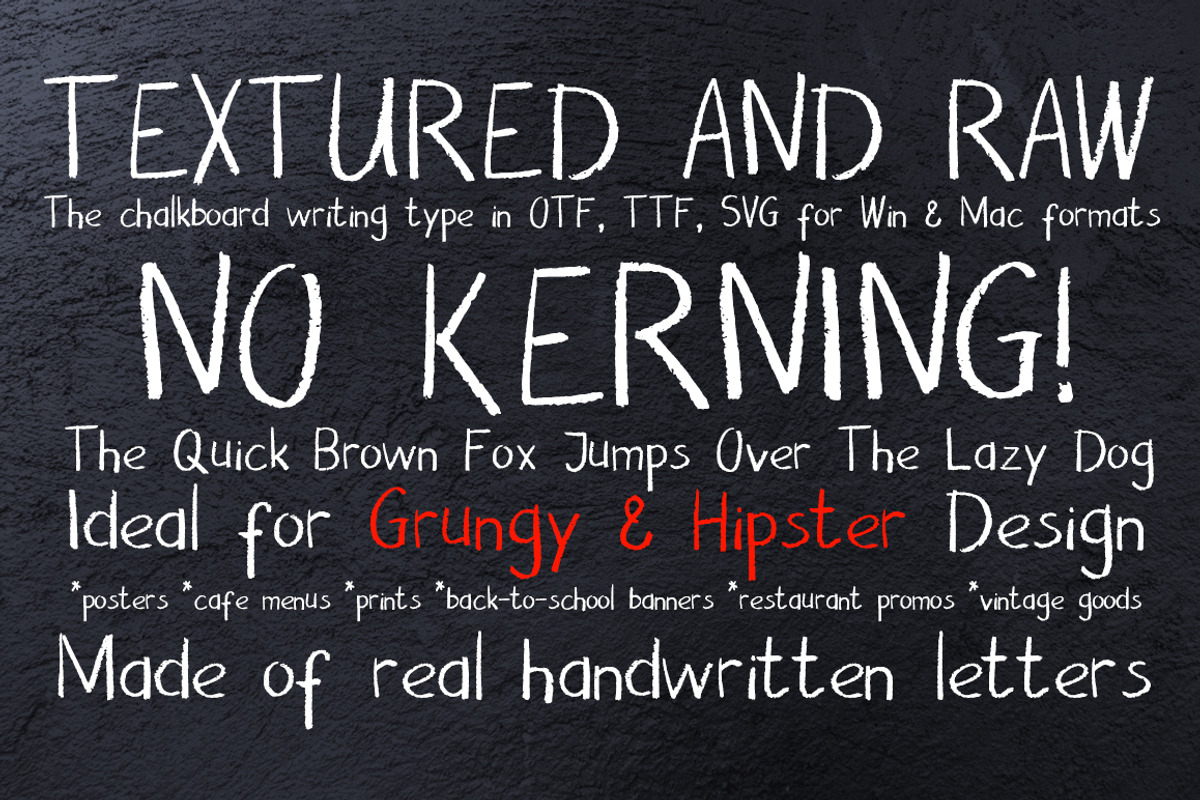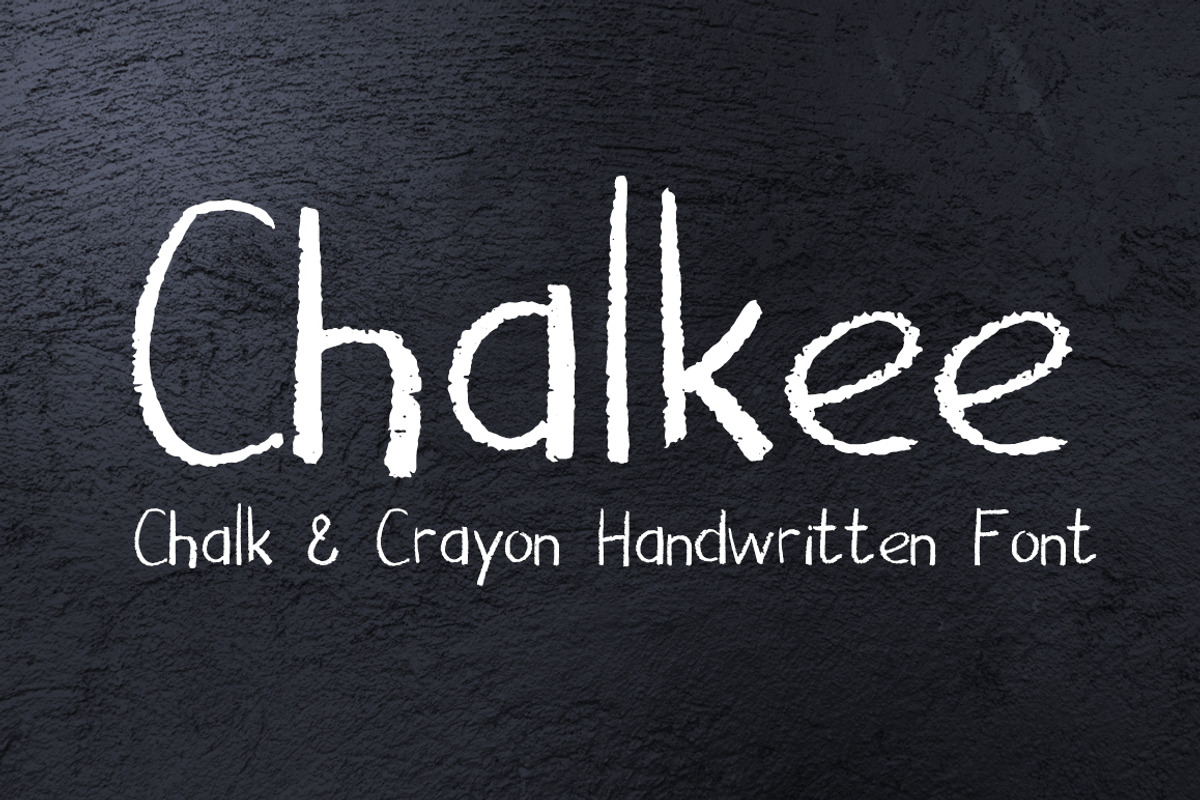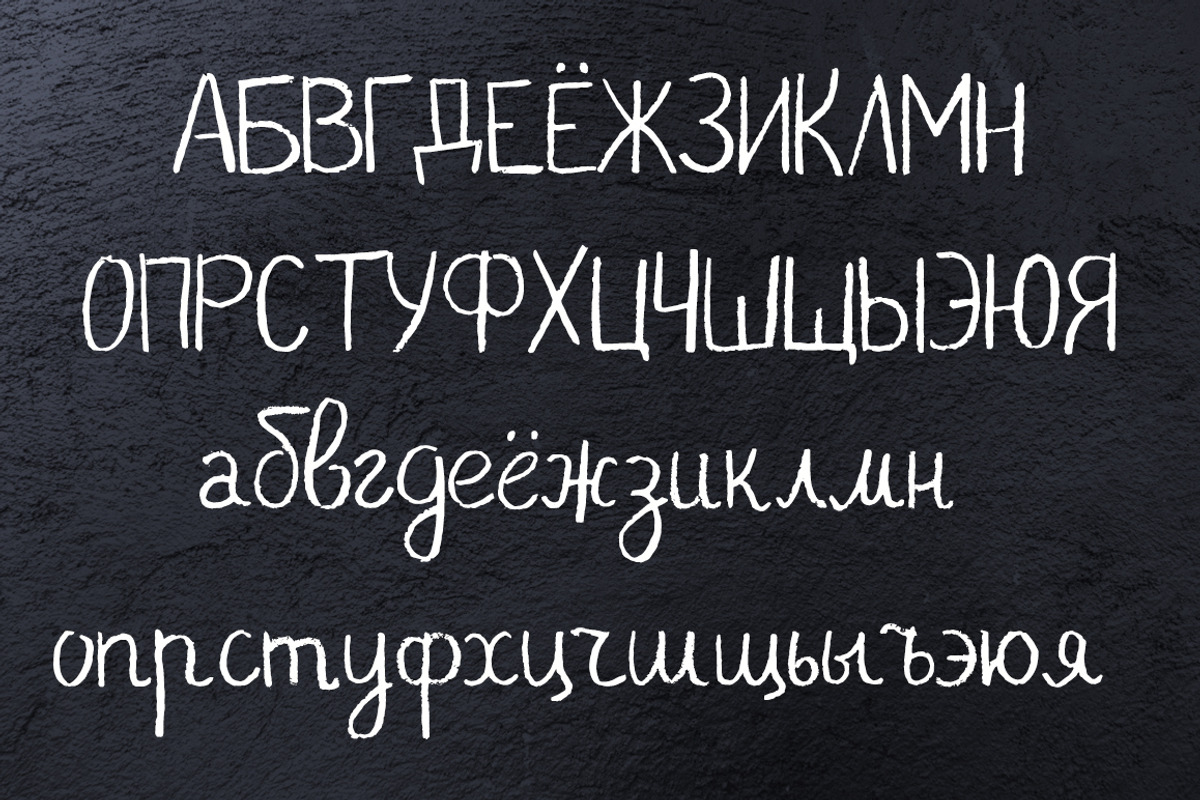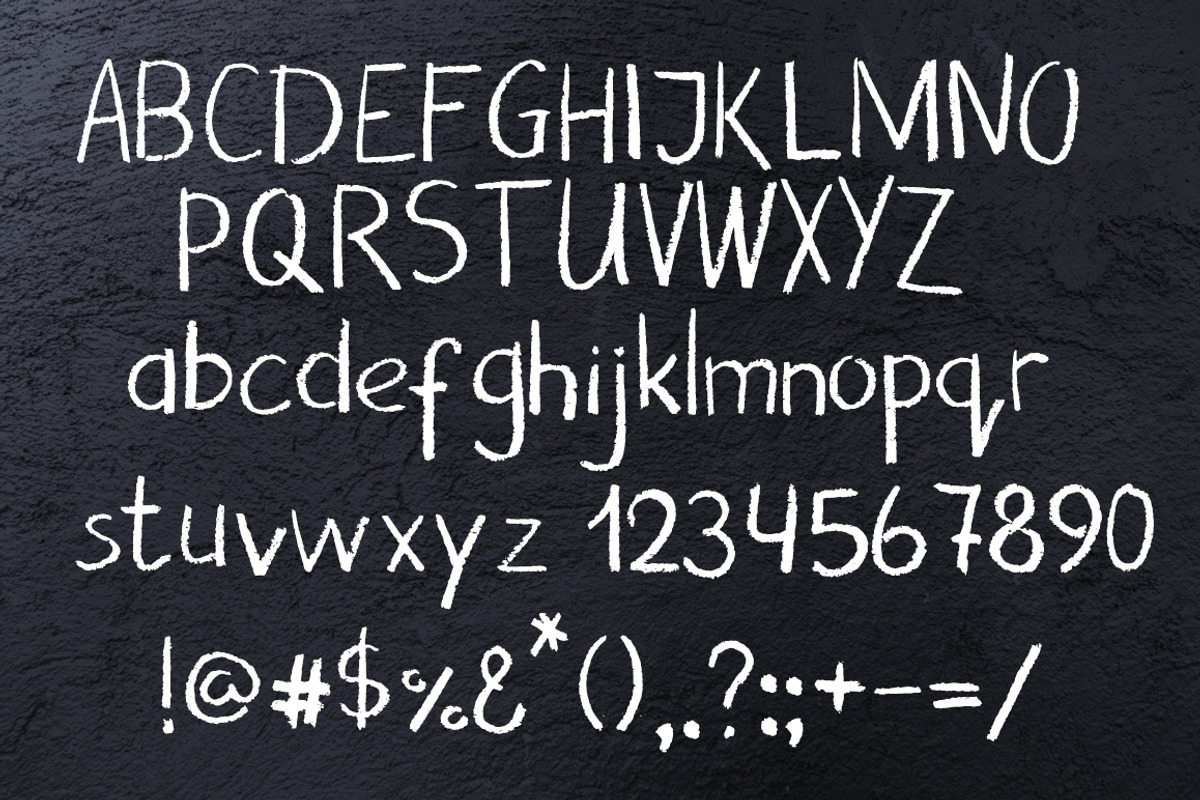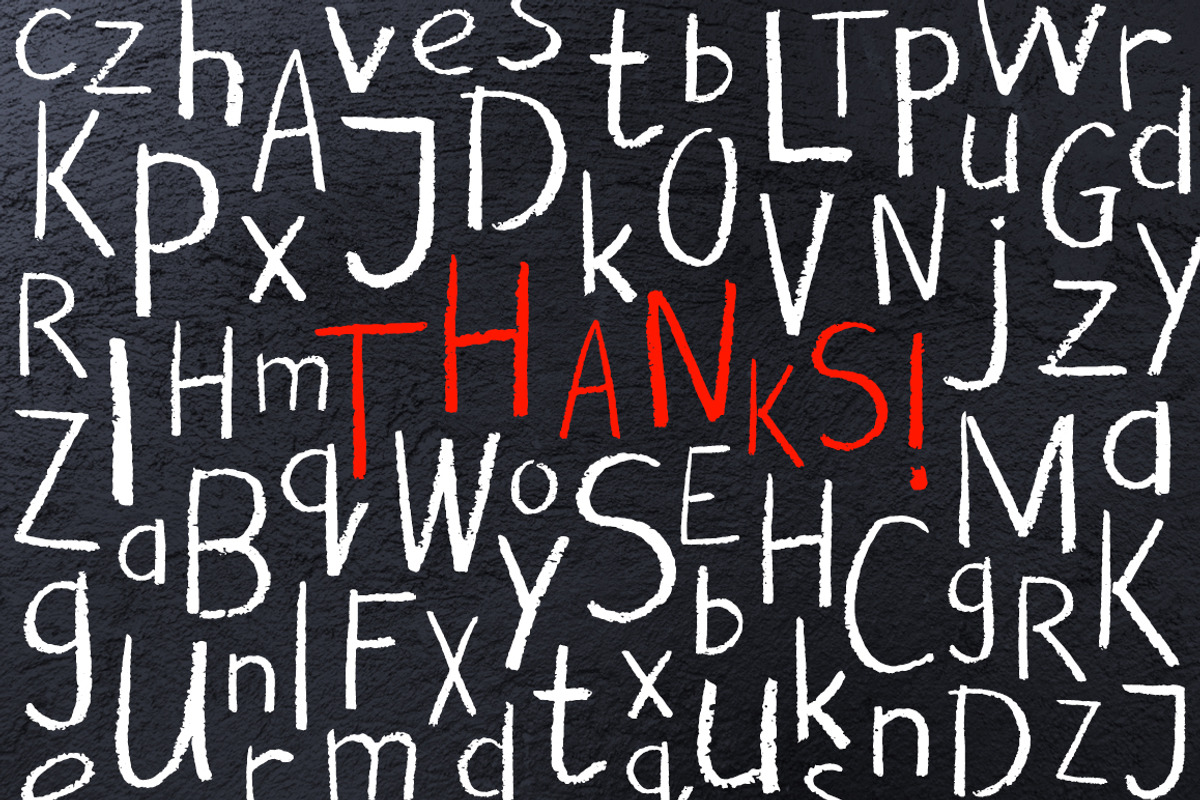
Chalk Pencil Handwritten Font
Chalkee is a chalk handwritten font with pretty grungy texture! It's modern, informal and playful, ideal for trendy hipster design or for any kid's product package!
Chalkee type contains Latin & Cyrillic (Russian) alphabet: uppercase and lowercase letters, numbers and special signs!